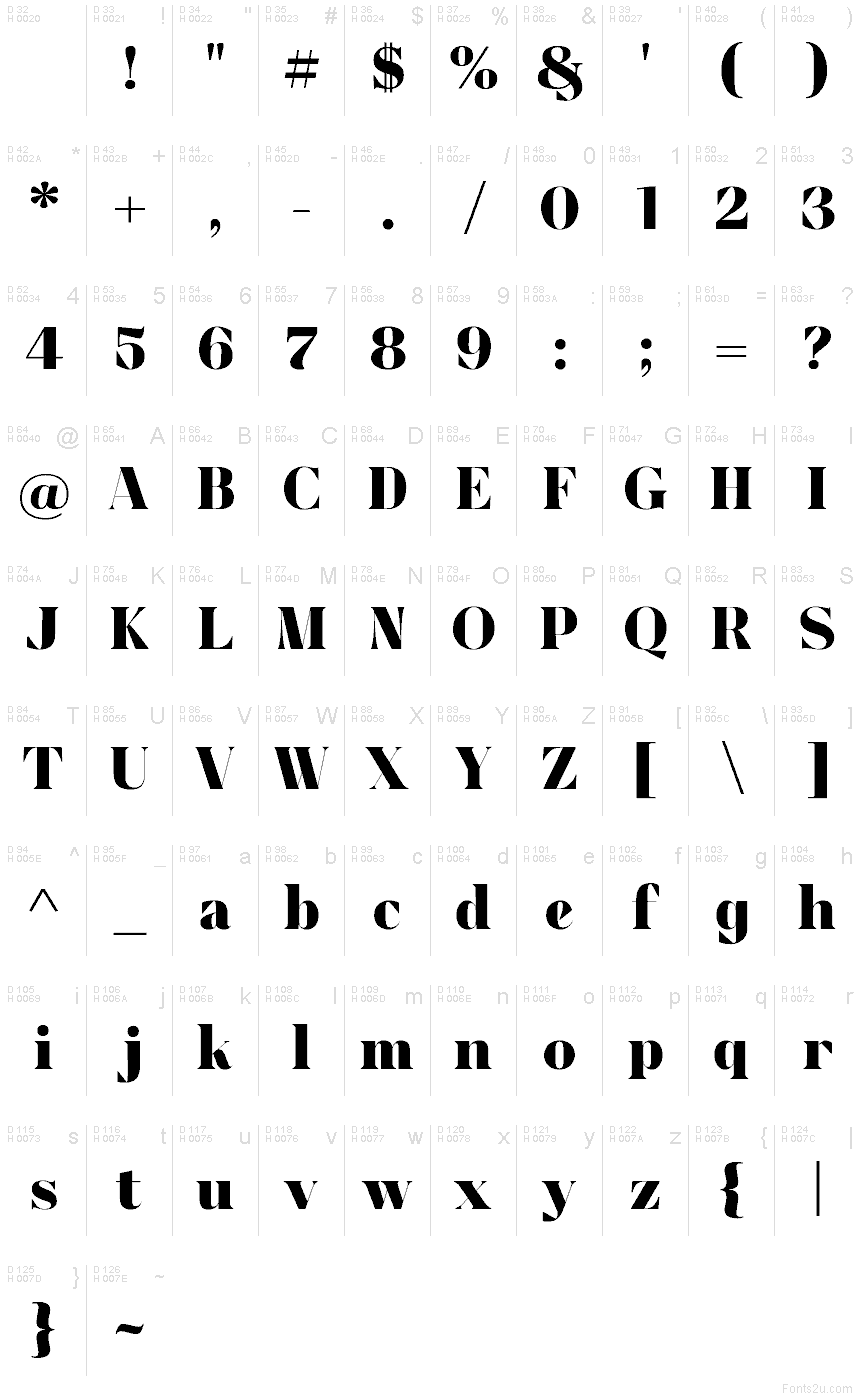
Gyeoul
Gyeoul font by Graphicxell is a free modern serif typeface. Its signature move is the carved, blade-like wedges that slice into thick strokes, creating bold silhouettes and crisp, inky contours. The letters feel sculpted—broad, velvety curves meeting knife‑edge cuts—so every word lands with drama and a cool, editorial confidence.
Using Gyeoul, headlines take on a cinematic weight while remaining clean and readable at larger sizes. This free font shines on magazine covers, fashion branding, posters, luxury packaging, album art, and event invitations, and it works beautifully for editorial pull quotes. Pair it with a calm grotesk sans for body copy, and give it generous size and a touch of tracking to let those striking shapes breathe.